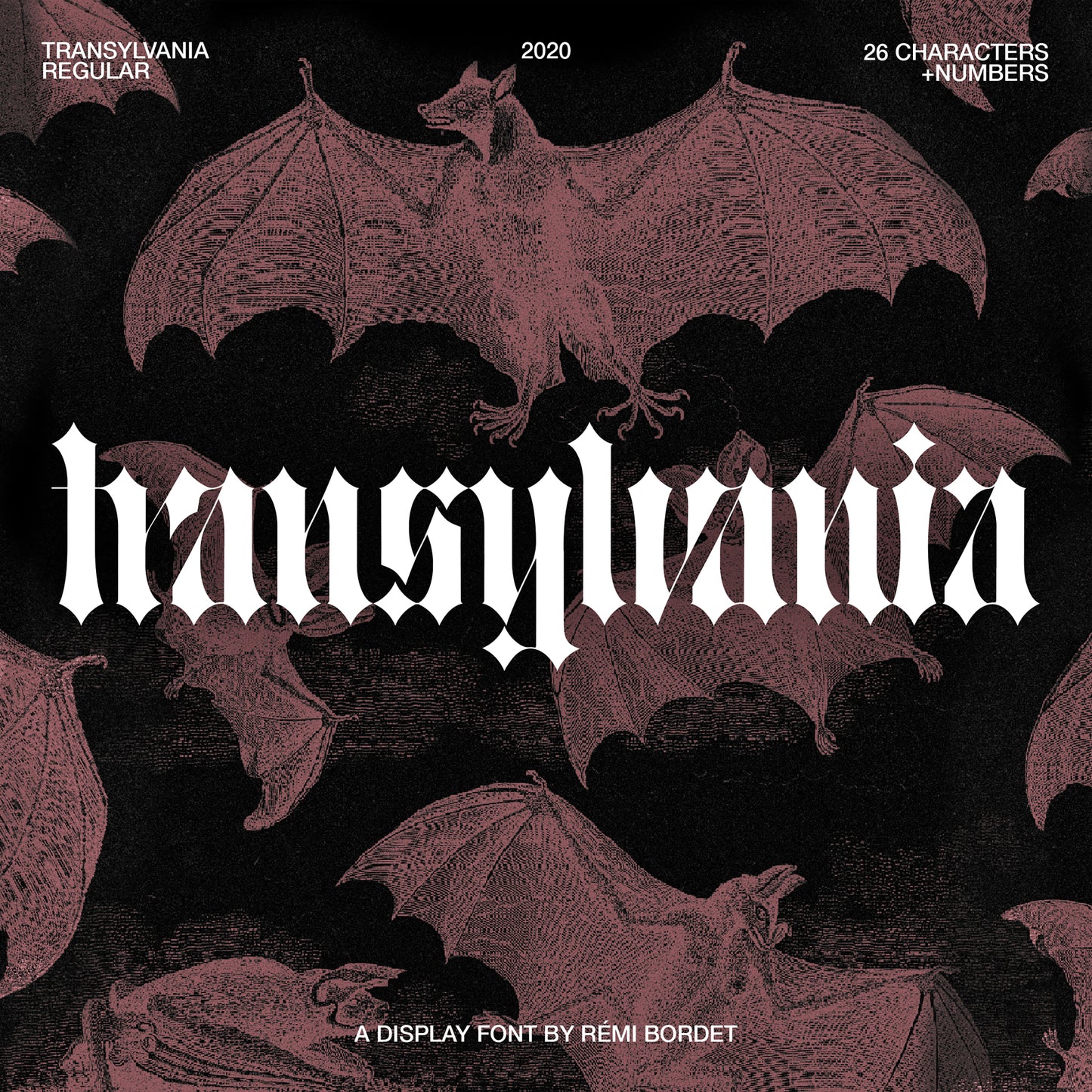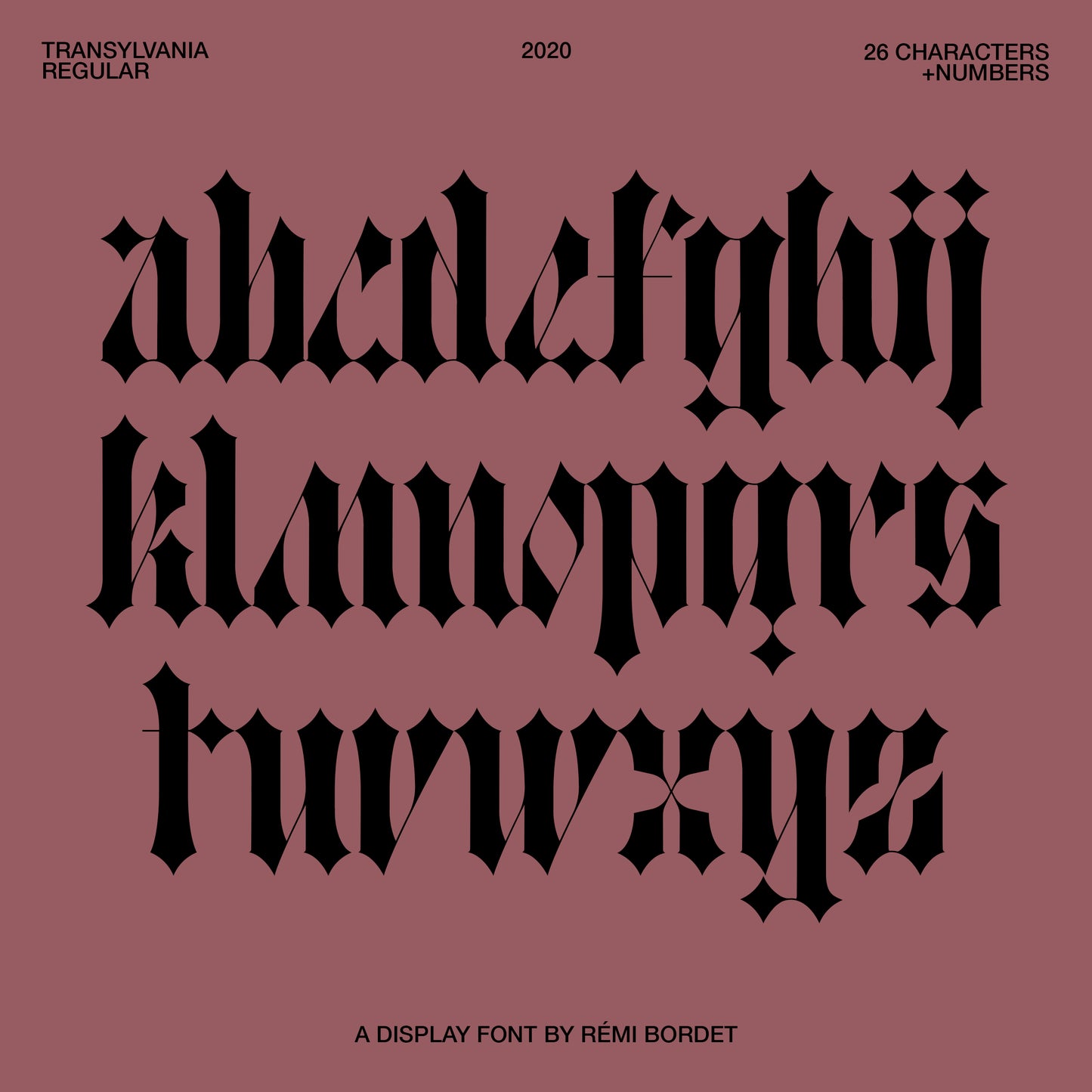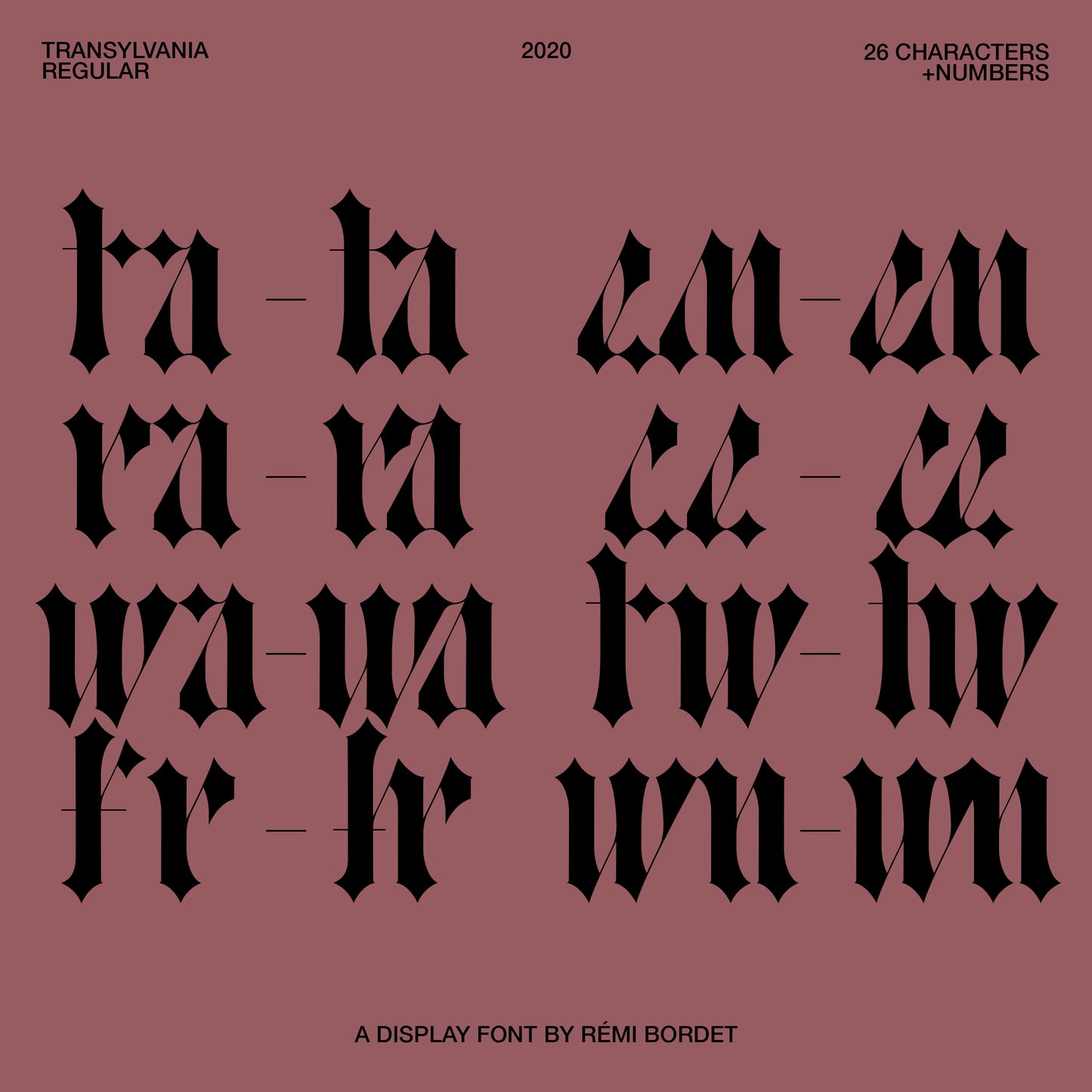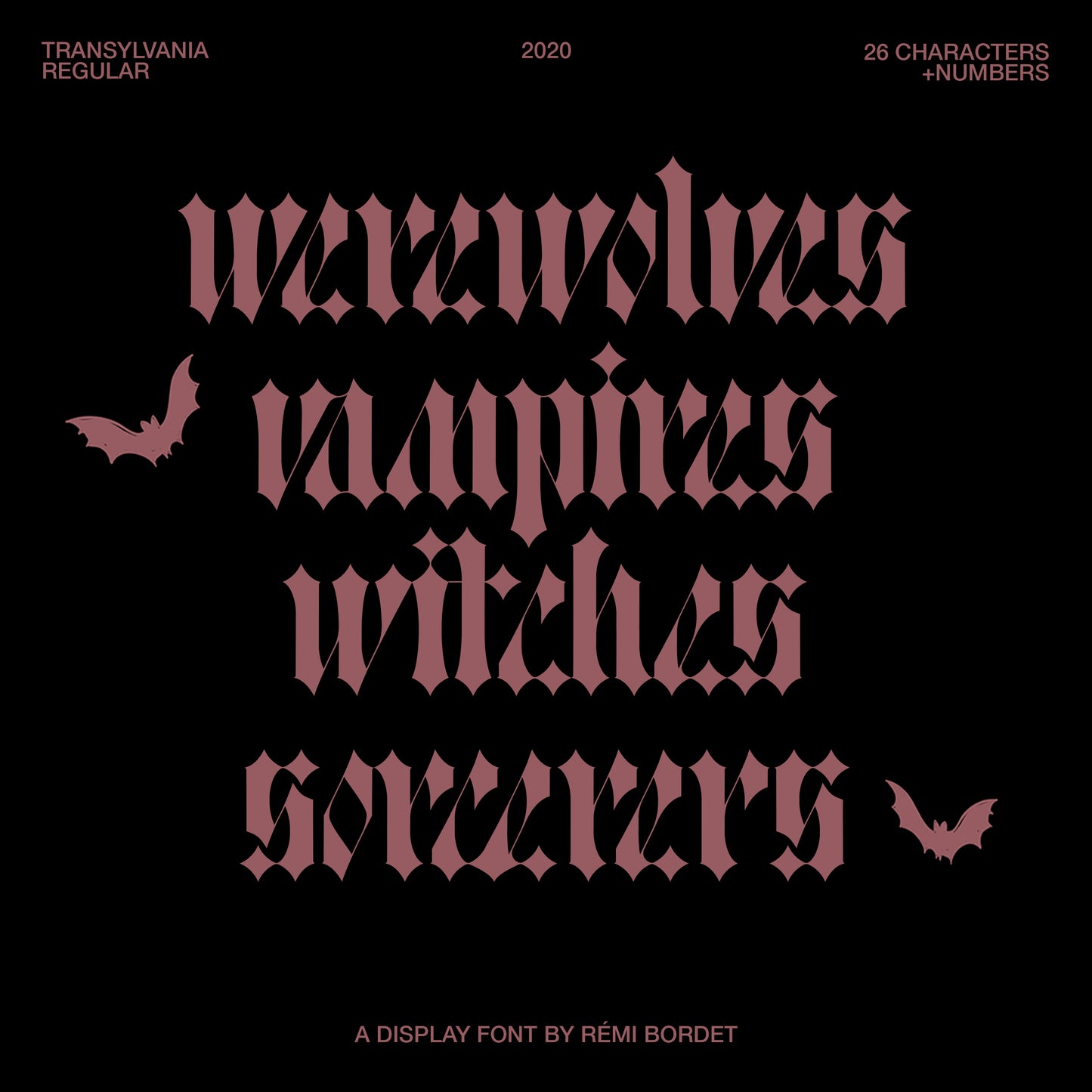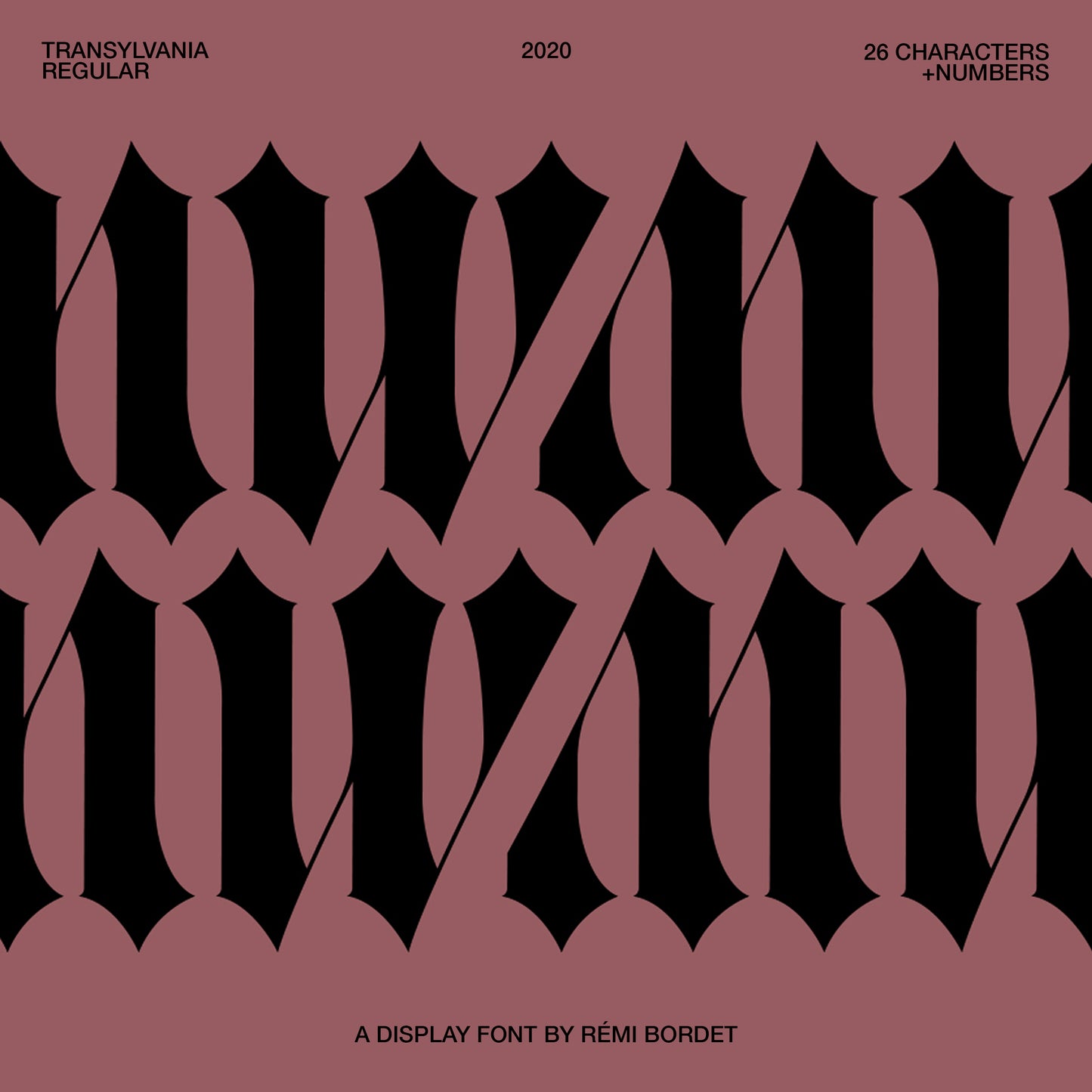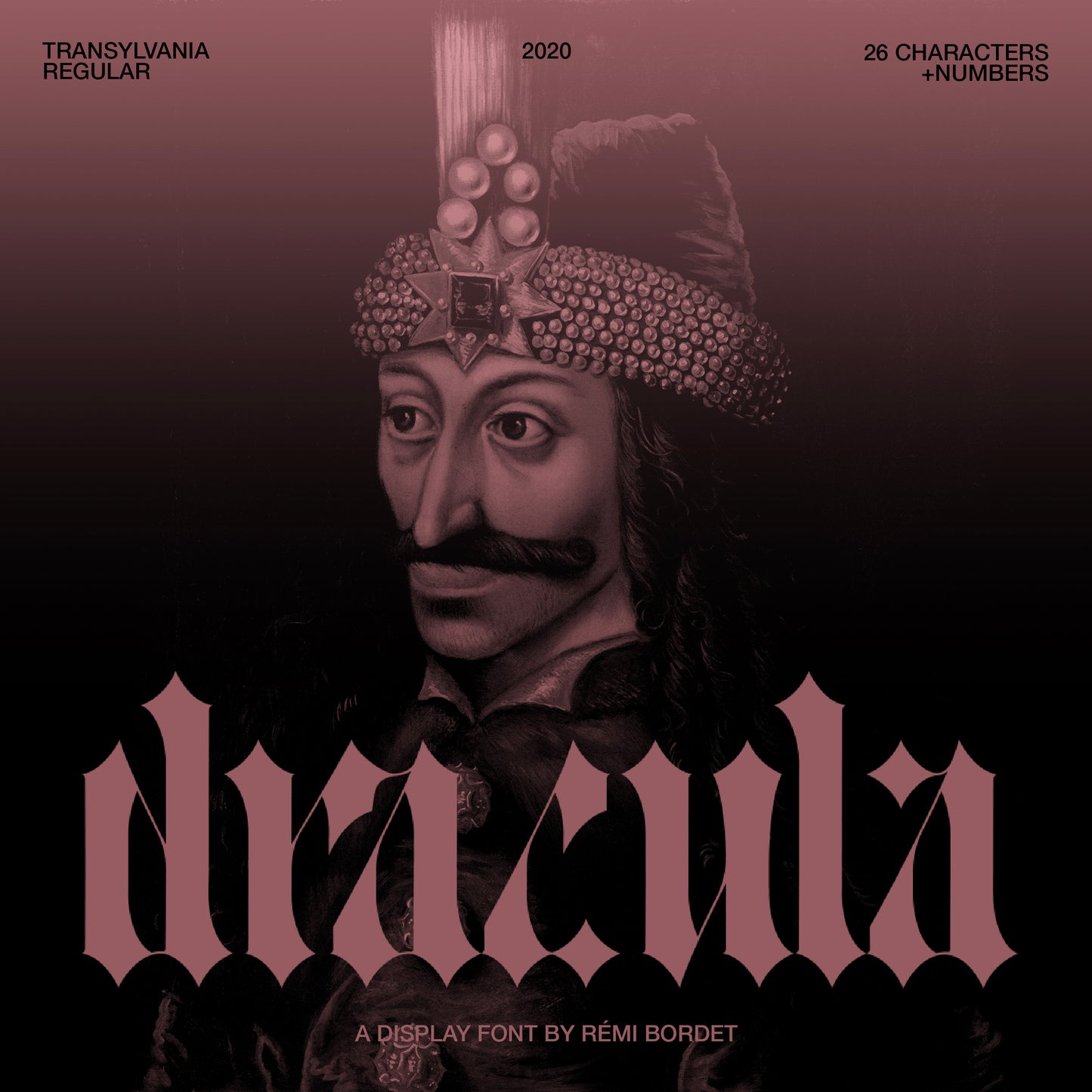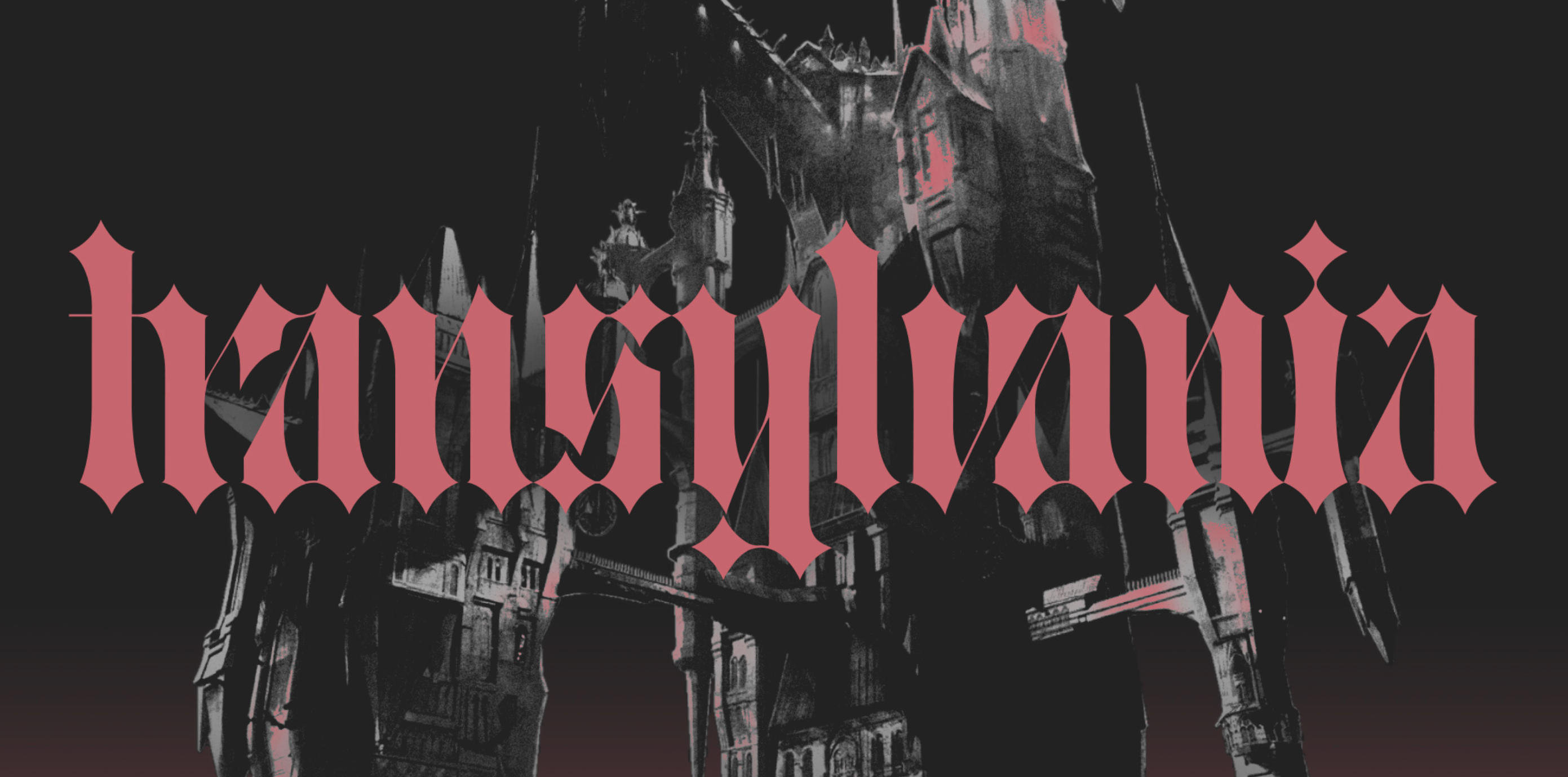
Transylvania
Rémi Bordet
Transylvania is an experimental display font that draws inspiration from the old-school gothic Fraktur style, reimagined with a modern, slanted twist.
Featuring numerous contextual ligatures, Transylvania showcases high-contrast letterforms with steep slants, imbuing them with an angular and expressive character. This makes it ideal for creating impactful headlines and designing books that demand attention.
- Lowercase only
- Diacritics
- Numbers
- Contextual ligatures